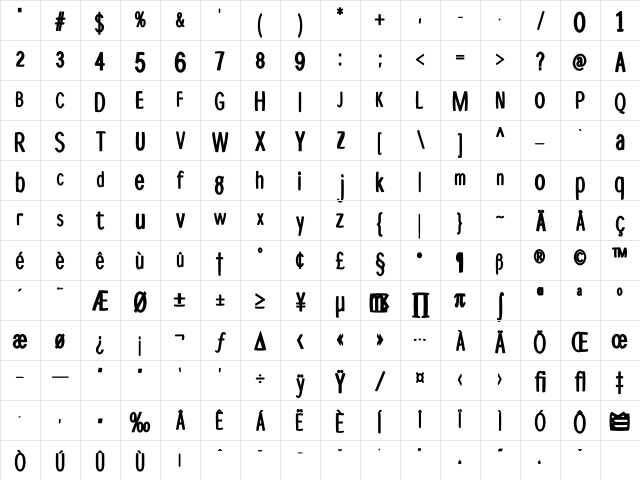
DisProporzBold. Bold
Design Context for DisProporzBold. Typeface
DisProporzBold. offers clean, dependable letterforms without strong stylistic allegiance, making it a practical choice for designers who need flexibility. Its bold stroke weight gives it real presence on the page.